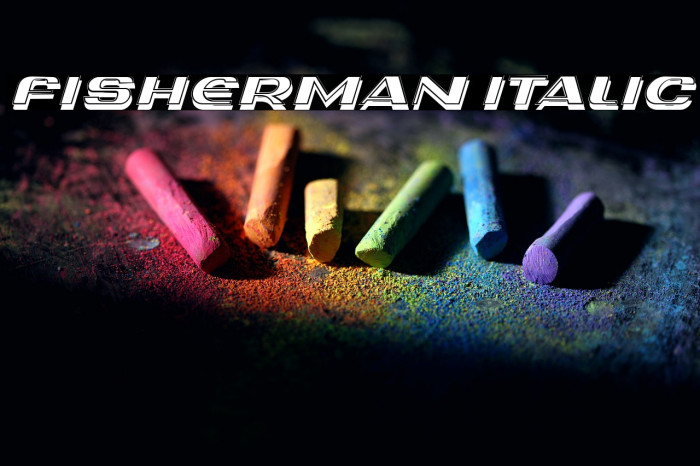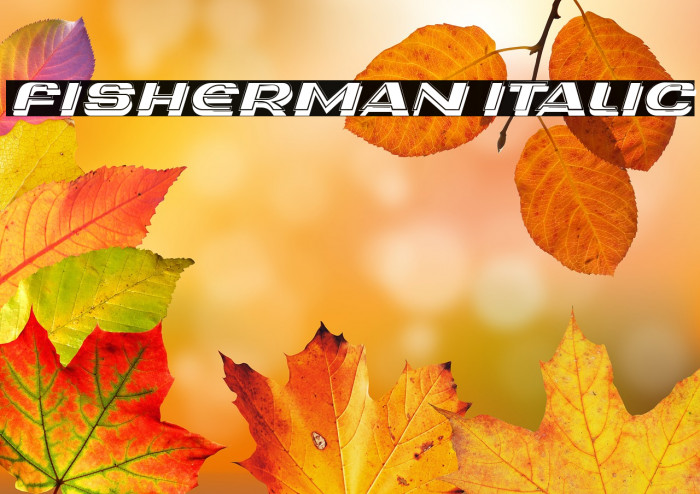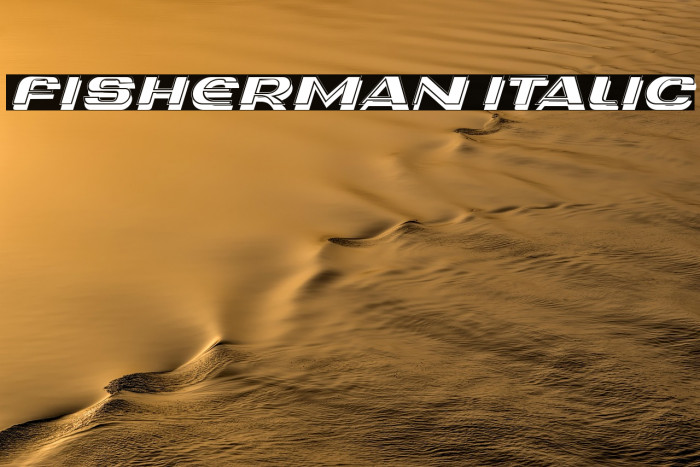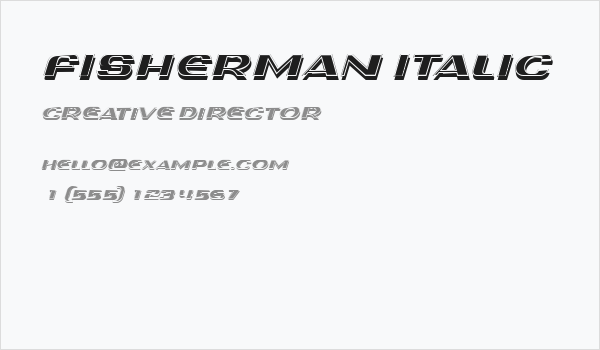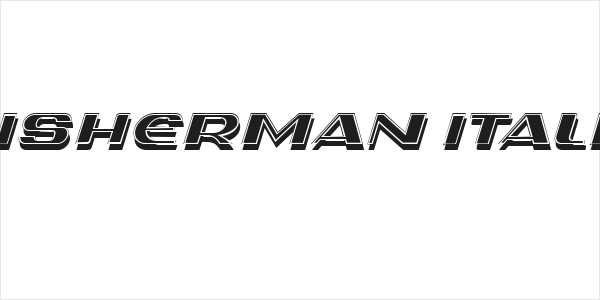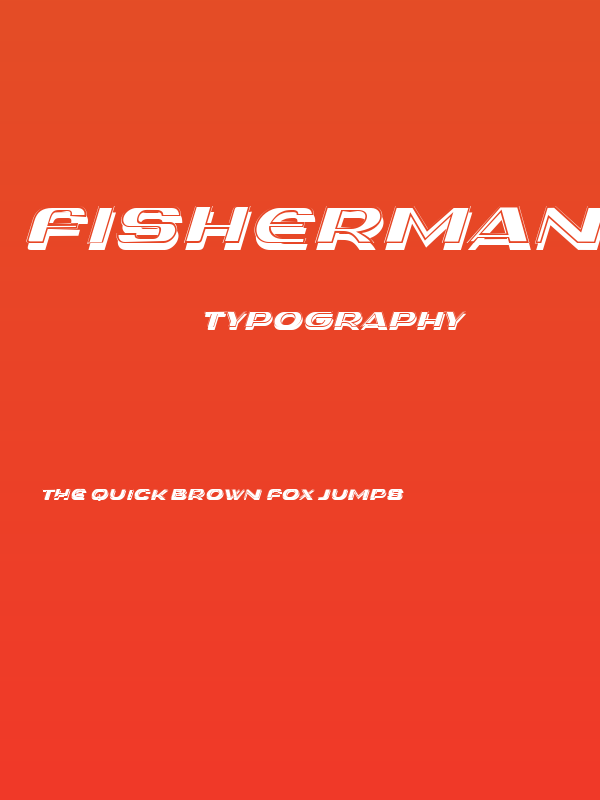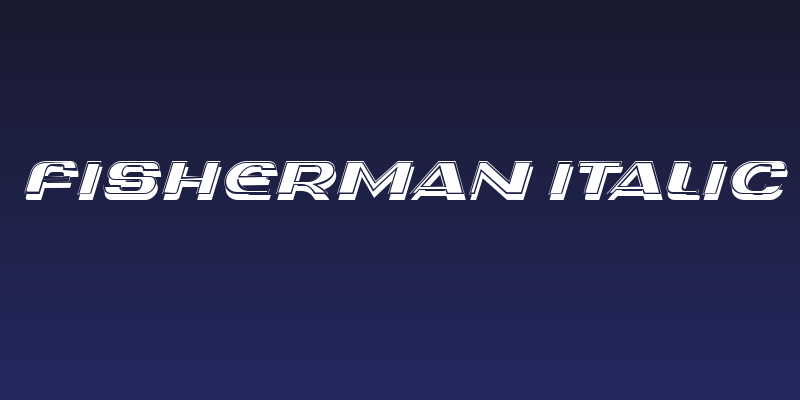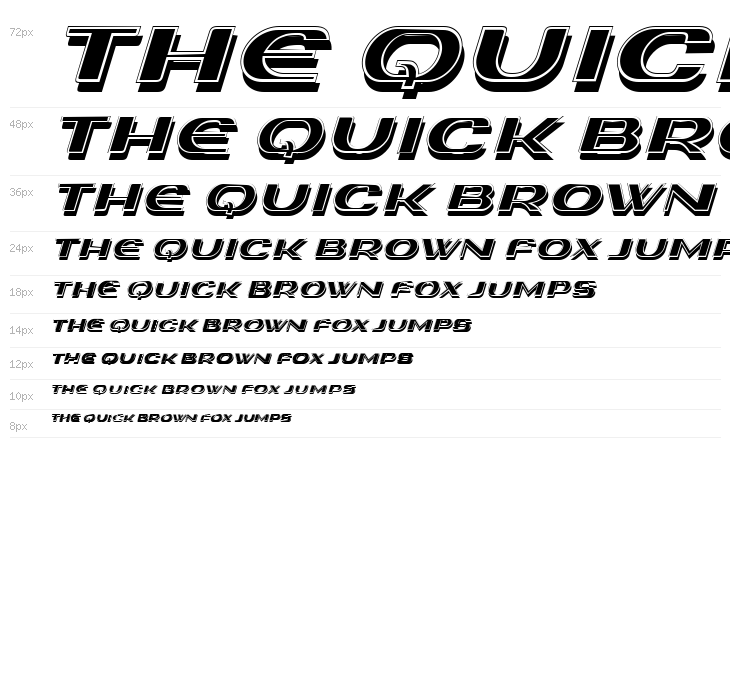
Fisherman Italic Font
Fisherman Italic Description
This font features a bold, italicized style with a distinct, modern flair. The characters are designed with a three-dimensional effect, incorporating shadowing that gives them a dynamic and impactful appearance. The uppercase and lowercase letters maintain a consistent slant, enhancing the italicized look. The numerals and special characters follow the same design principles, ensuring uniformity across all glyphs. This font's unique style makes it stand out, with its bold strokes and sharp angles contributing to a striking visual presence.
| Proposed Projects | Ideal for projects requiring a bold statement, such as posters, headlines, branding, and logos. |